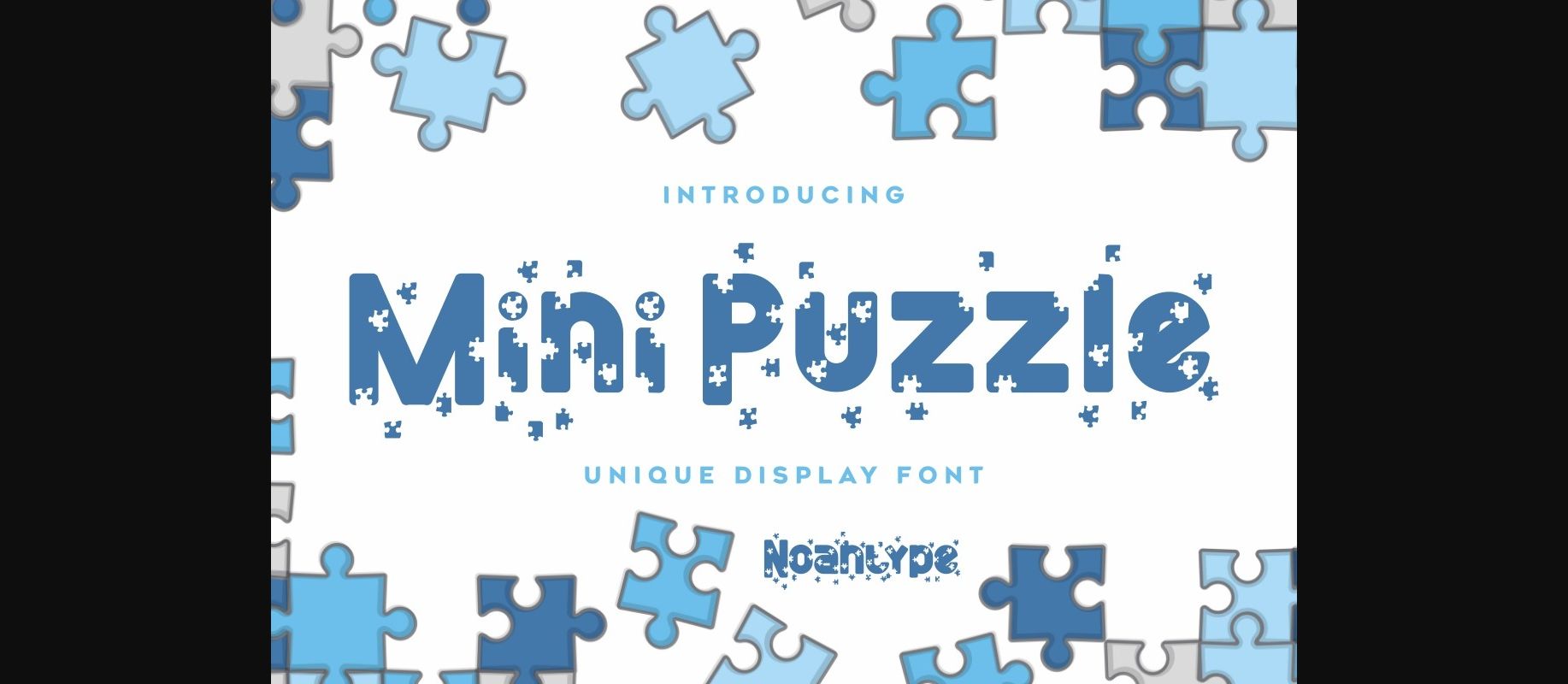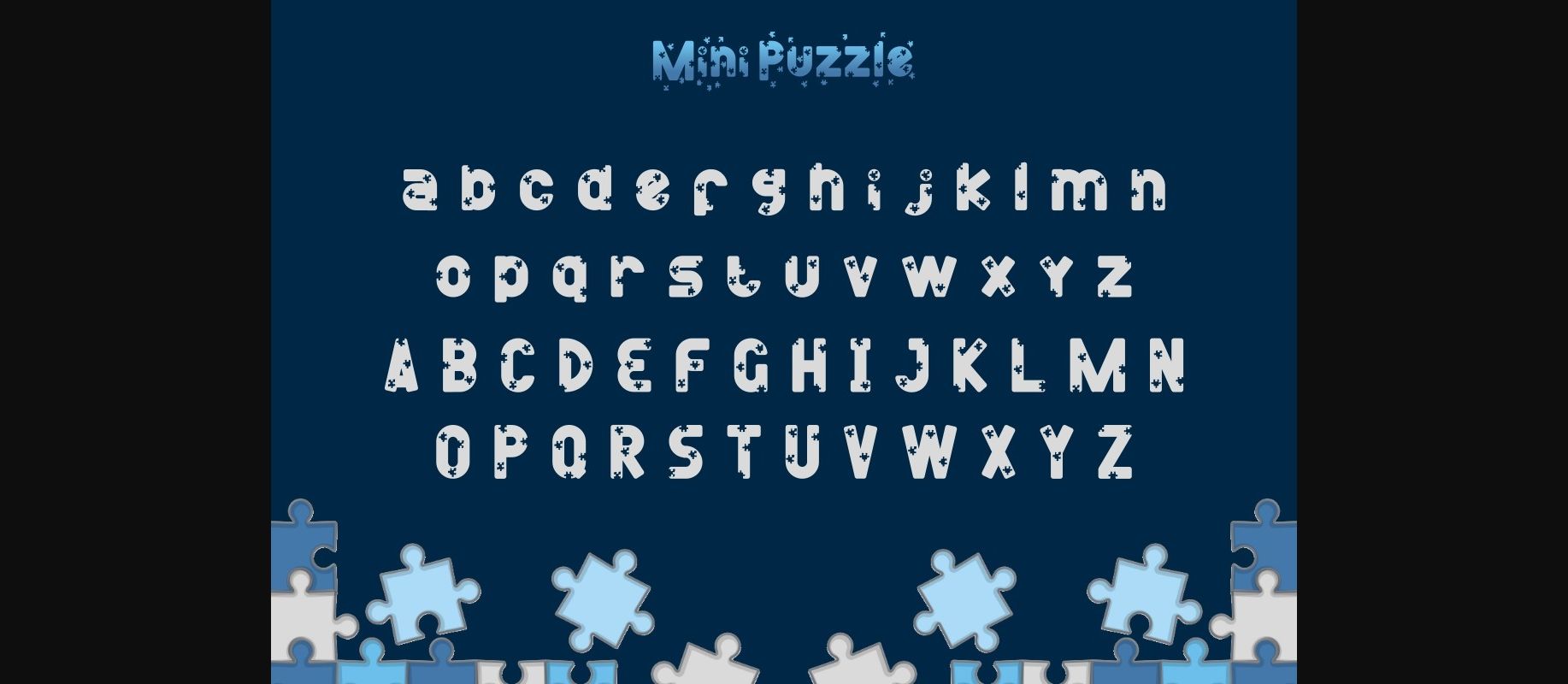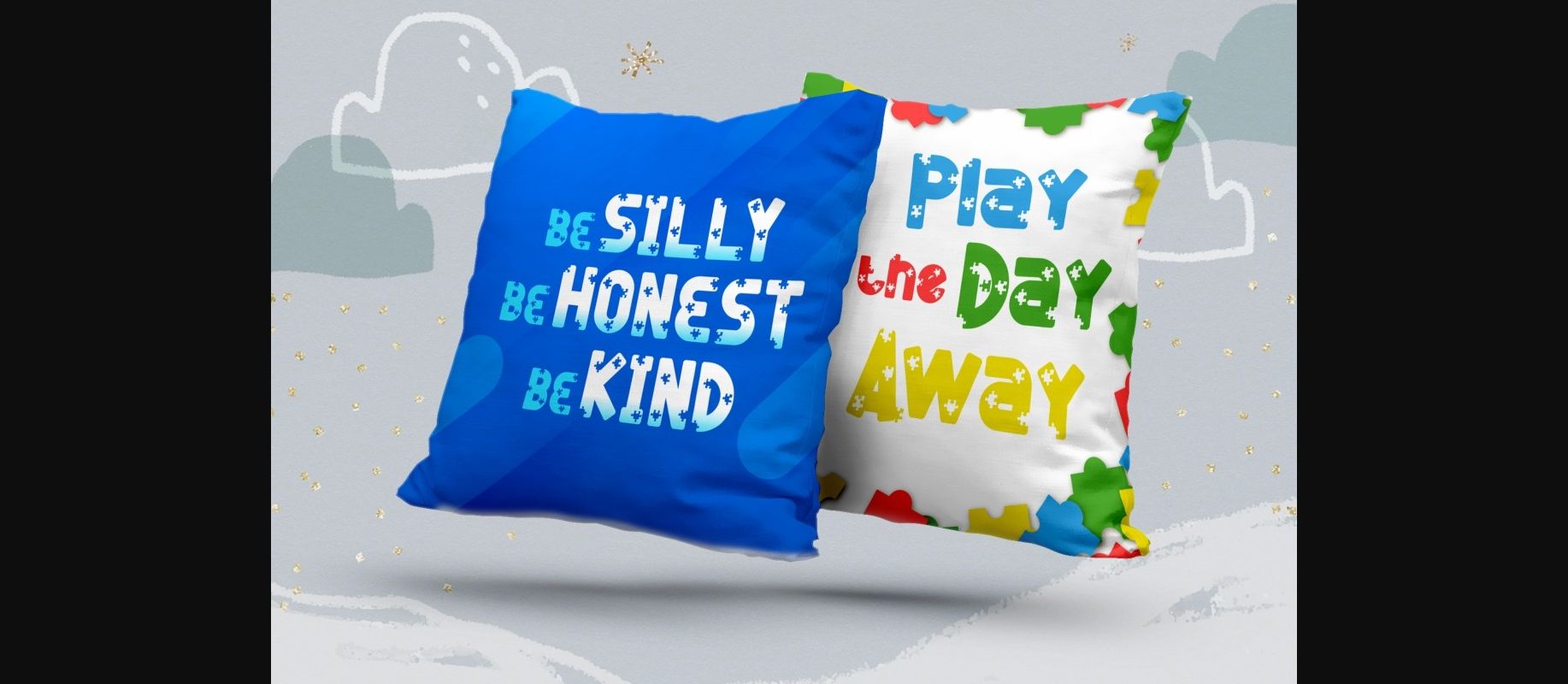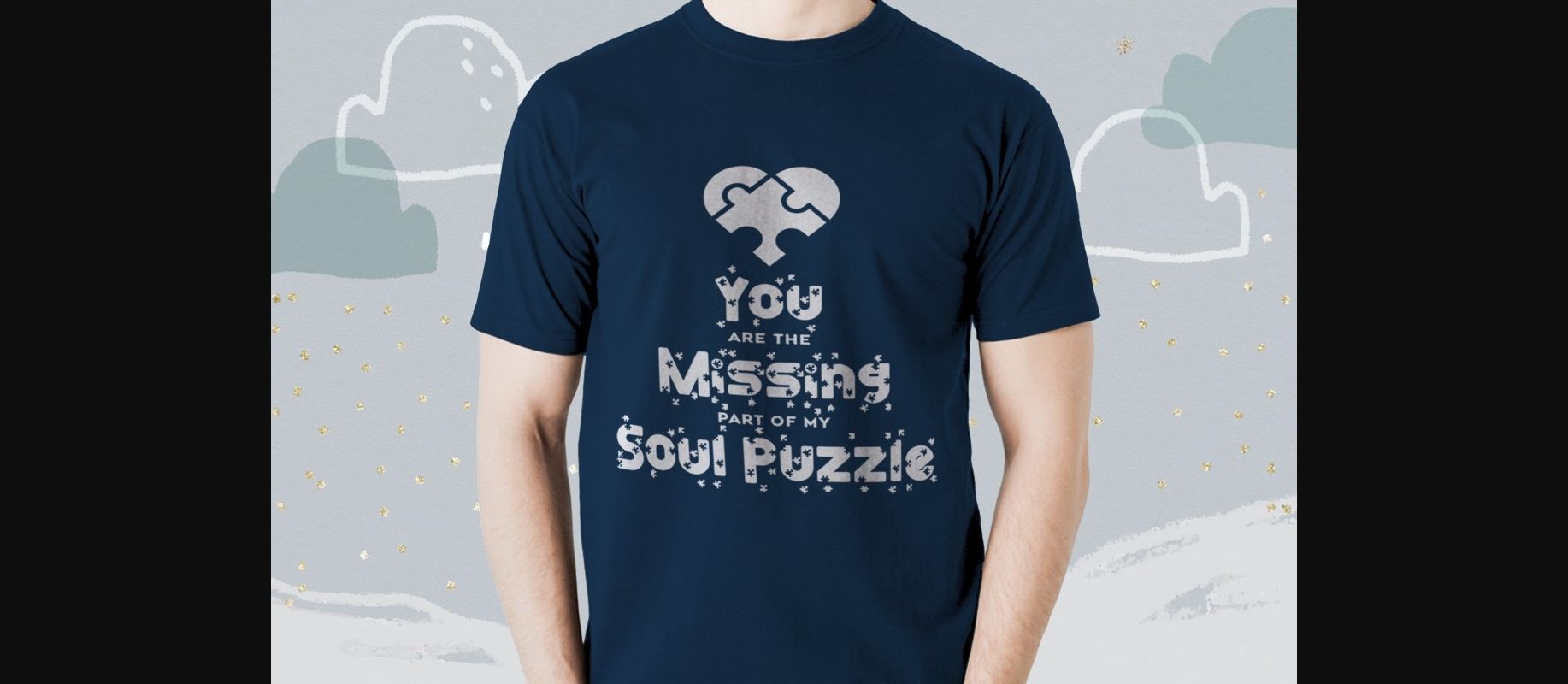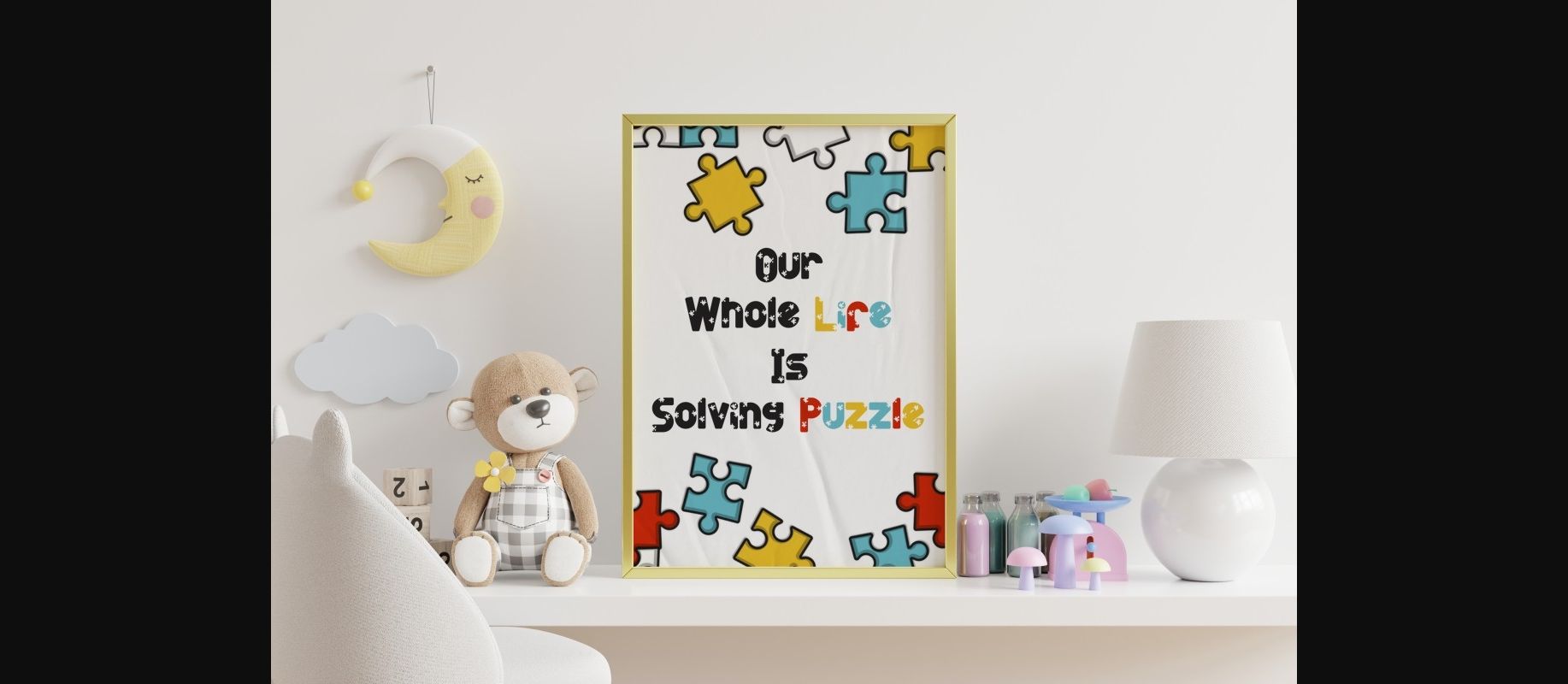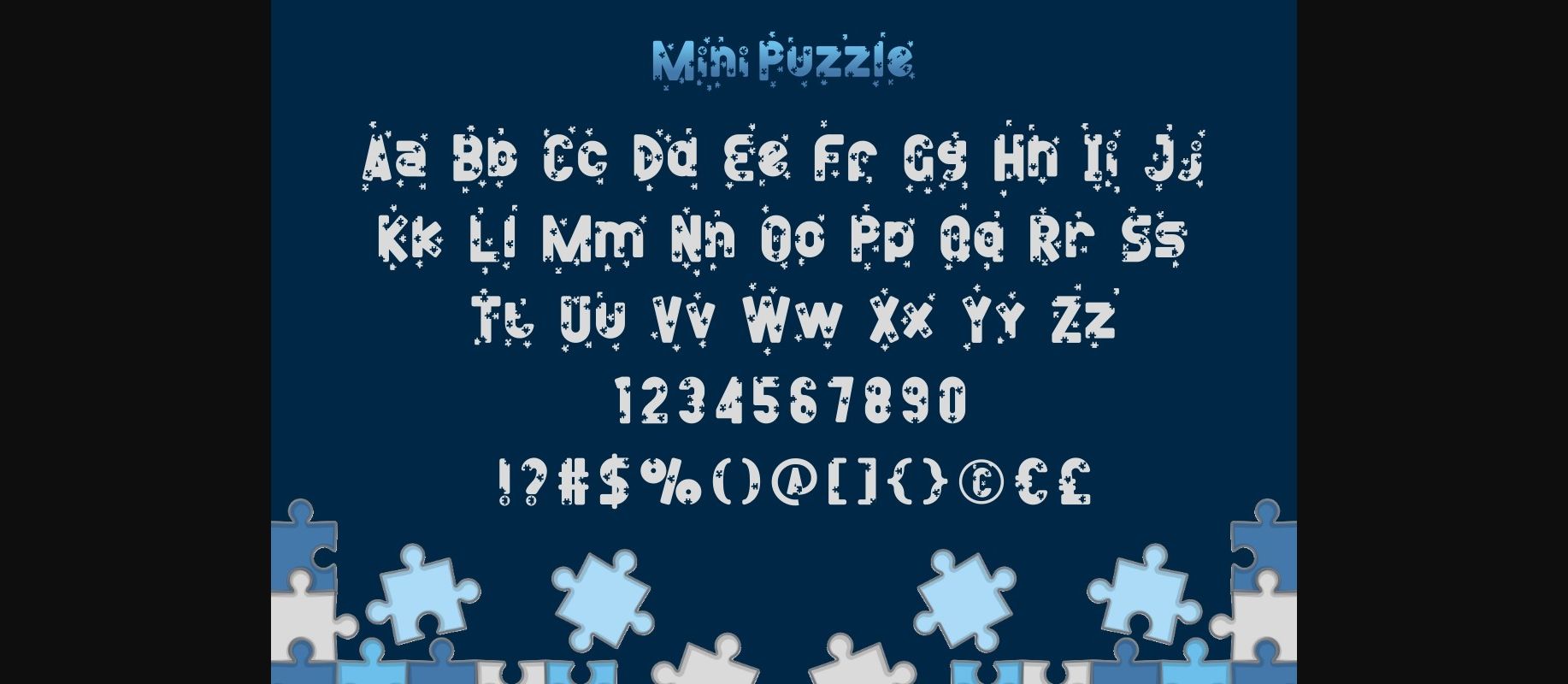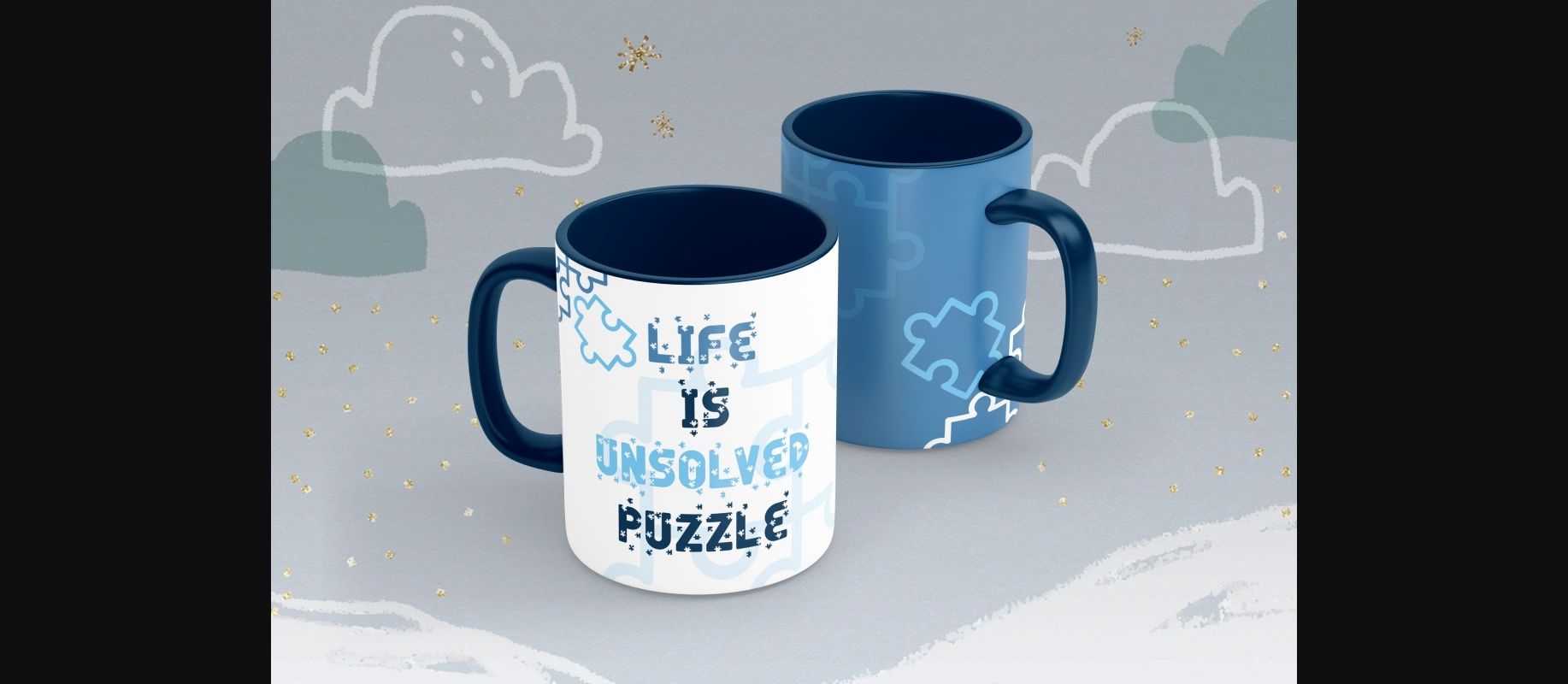
About Mini Puzzle Font
Mini Puzzle is a cool and original display font. It is perfect for product packaging, branding project, magazine covers, social media, wedding, or just used to express words above the background.